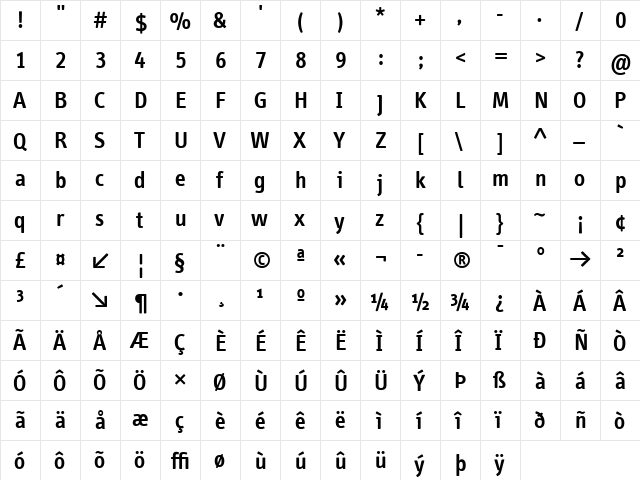
Info SemiBold Font Preview
Info SemiBold
Info SemiBold Font Details
| Style | SemiBold |
| Foundry | Erik Spiekermann, Ole Sch\ fer, . Published by FontShop International FontFont release |
Design Context for Info Typeface
Info takes a measured approach to typography — its balanced proportions and neutral character make it a reliable workhorse for both digital and print work. The heavy weight commands attention and anchors typographic hierarchies.